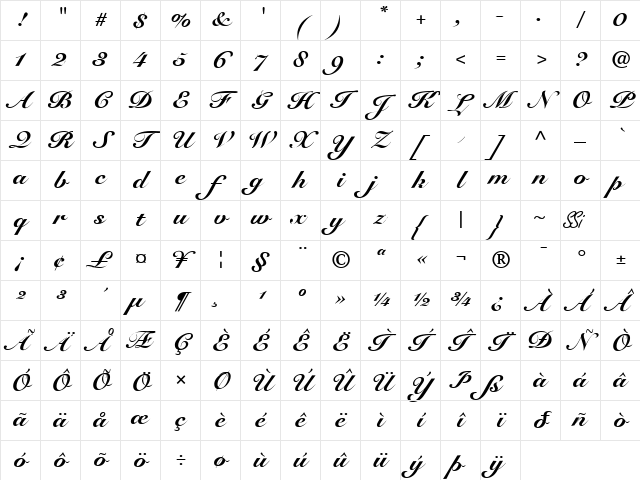
Complete Tango Script Black SSi Black glyph index. Displaying only characters natively supported by Tango Script Black SSi Black font.
Tango Script Black SSi flows with the natural rhythm of handwritten lettering, making it ideal for designs that call for warmth and personal expression.